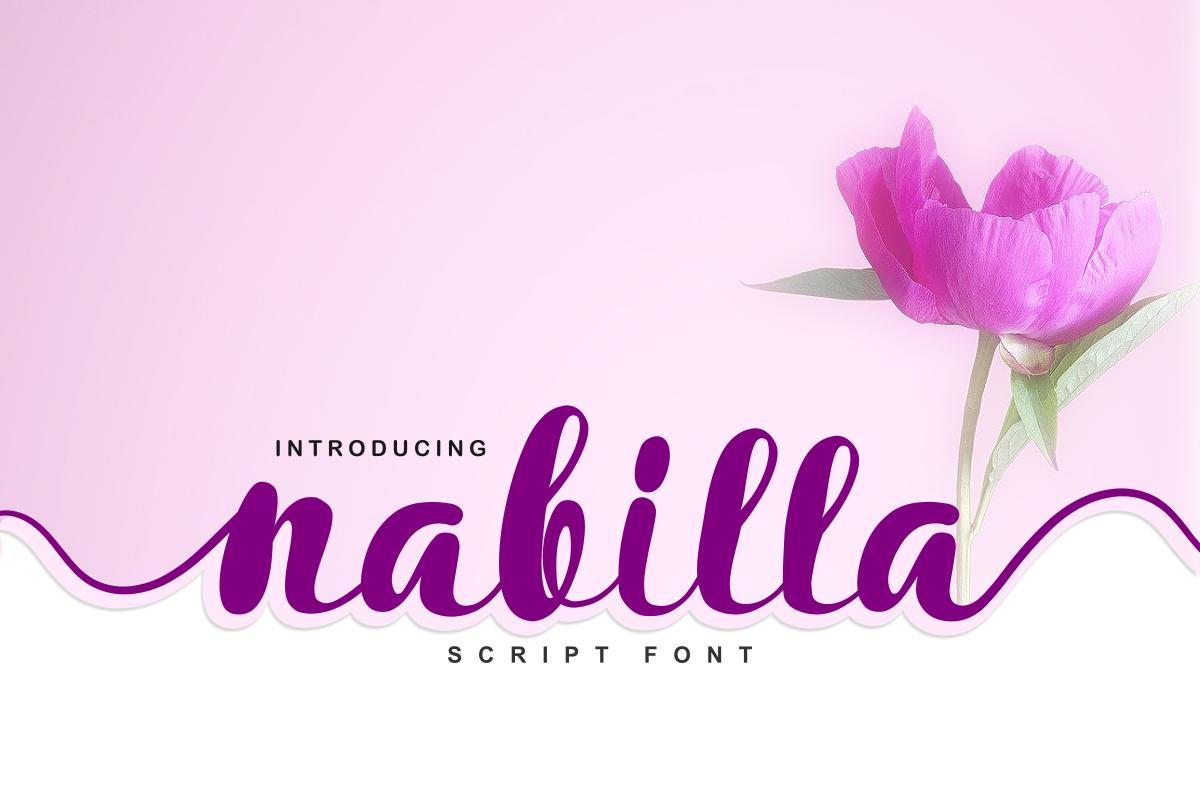
Nabilla Font Description
Nabilla is a delicate, elegant and flowing handwritten font. It has beautiful and well balanced characters and as a result, it matches a wide pool of designs. Add it to your most creative ideas and notice how it makes them come alive! This font is PUA encoded which means you can access all of the glyphs and swashes with ease! It features a varying baseline, smooth lines, gorgeous glyphs and stunning alternates.